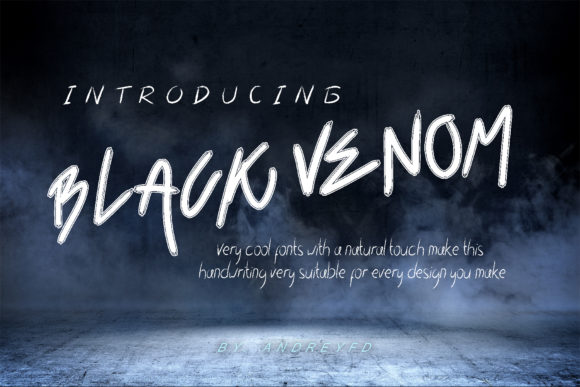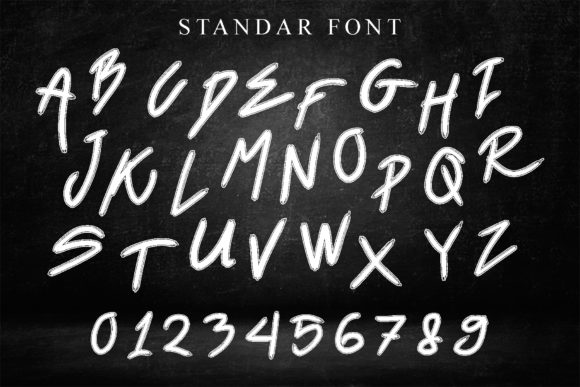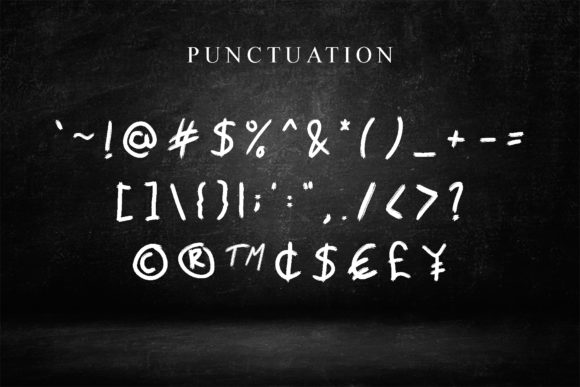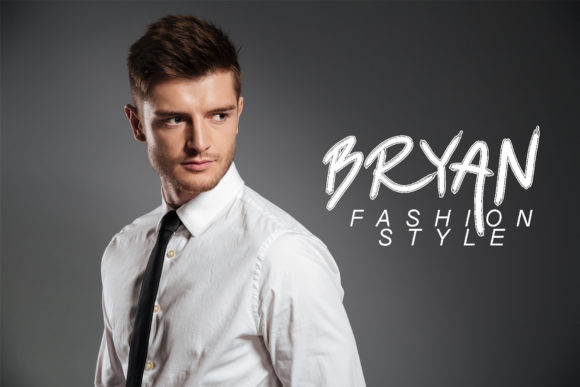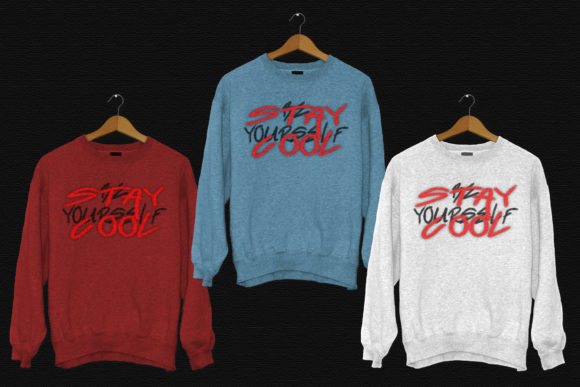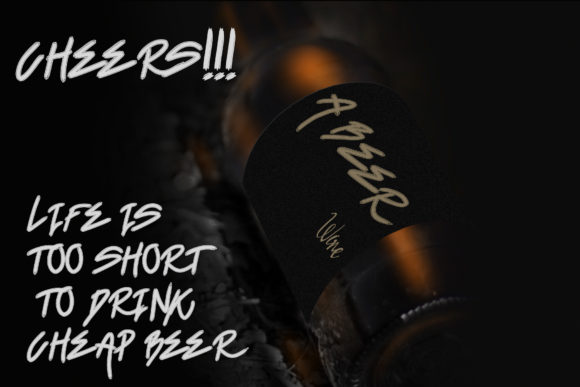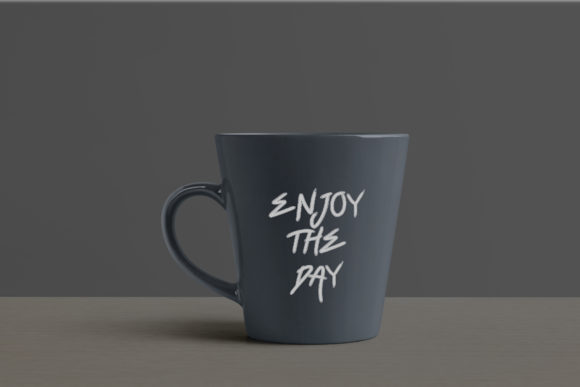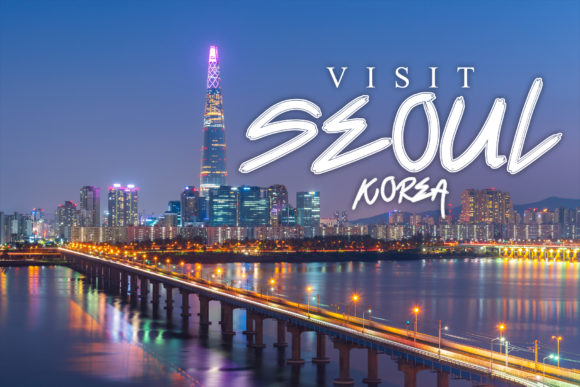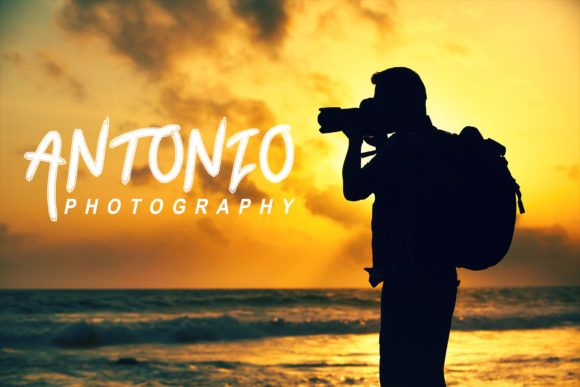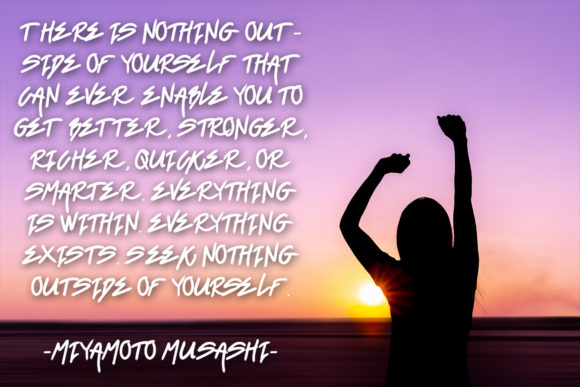
Black Venom Font
About Black Venom Font
Black Venom embodies fun, quirkiness and authenticity. This enchanting handwritten font will turn any creative idea into a true standout.